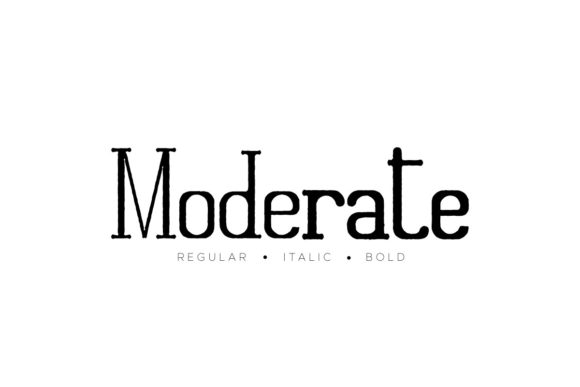
Welcome to the world of Moderate Font - an exquisite serif font family that exudes elegance and timeless charm. Created by the renowned NihStudio, Moderate Font is a versatile wonder, perfectly suited for a wide array of projects that demand a touch of sophistication and class.
Whether you're a creative entrepreneur, a passionate designer, or simply seeking to elevate your personal projects, Moderate Font stands ready to captivate your audience. Its three distinct styles - Regular, Italic, and Bold - offer endless possibilities to express your unique vision.
Immerse yourself in the charm of Moderate Font's Regular style, where classic serifs meet modern simplicity. With its clean lines and timeless appeal, this style adds a touch of elegance to any project, be it a captivating logo, a sophisticated business card, or an informative flyer.
Embrace the expressive flair of Moderate Font's Italic style, where each letter dances across the page with graceful fluidity. This style is perfect for adding a touch of whimsy to your designs, whether it's an eye-catching poster, a heartfelt invitation, or a creative social media post.
Exude confidence and power with Moderate Font's Bold style, where thick, bold strokes command attention and make a statement. This style is ideal for creating impactful headlines, striking posters, or memorable branding that leaves a lasting impression.
But Moderate Font's versatility extends far beyond its three styles. Its beauty shines in a variety of business industries, from the bustling energy of restaurants and cafes to the soulful melodies of music and singers, from the sleek lines of automotive to the solid foundations of the property industry.
Moderate Font is your perfect partner for creating captivating restaurant menus that tantalize taste buds, elegant cafe logos that invite relaxation, and striking music posters that ignite passion. Its bold presence adds character to automotive flyers, while its timeless charm enhances property brochures with a touch of sophistication.
With Moderate Font, your creativity has no bounds. Let the Regular style lend a touch of classic beauty to your branding, allow the Italic style to add a hint of playfulness to your stationery, and let the Bold style make a powerful statement on your signage.